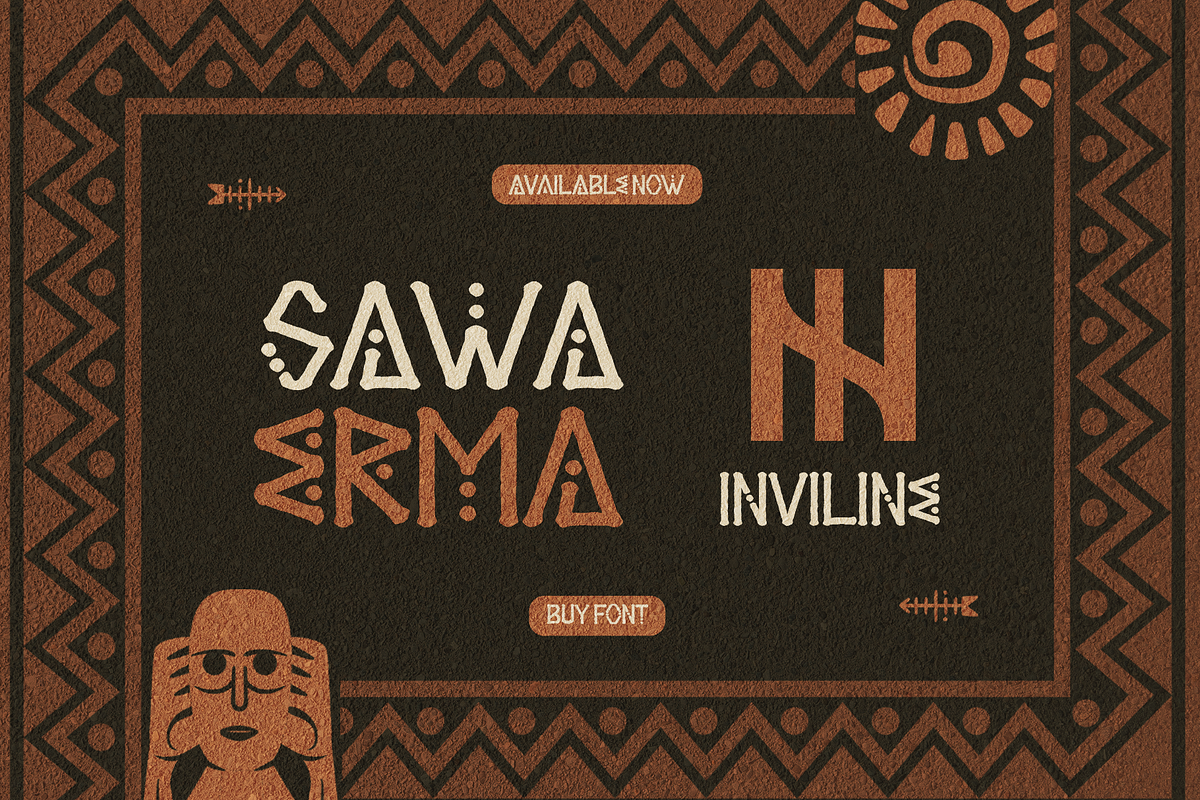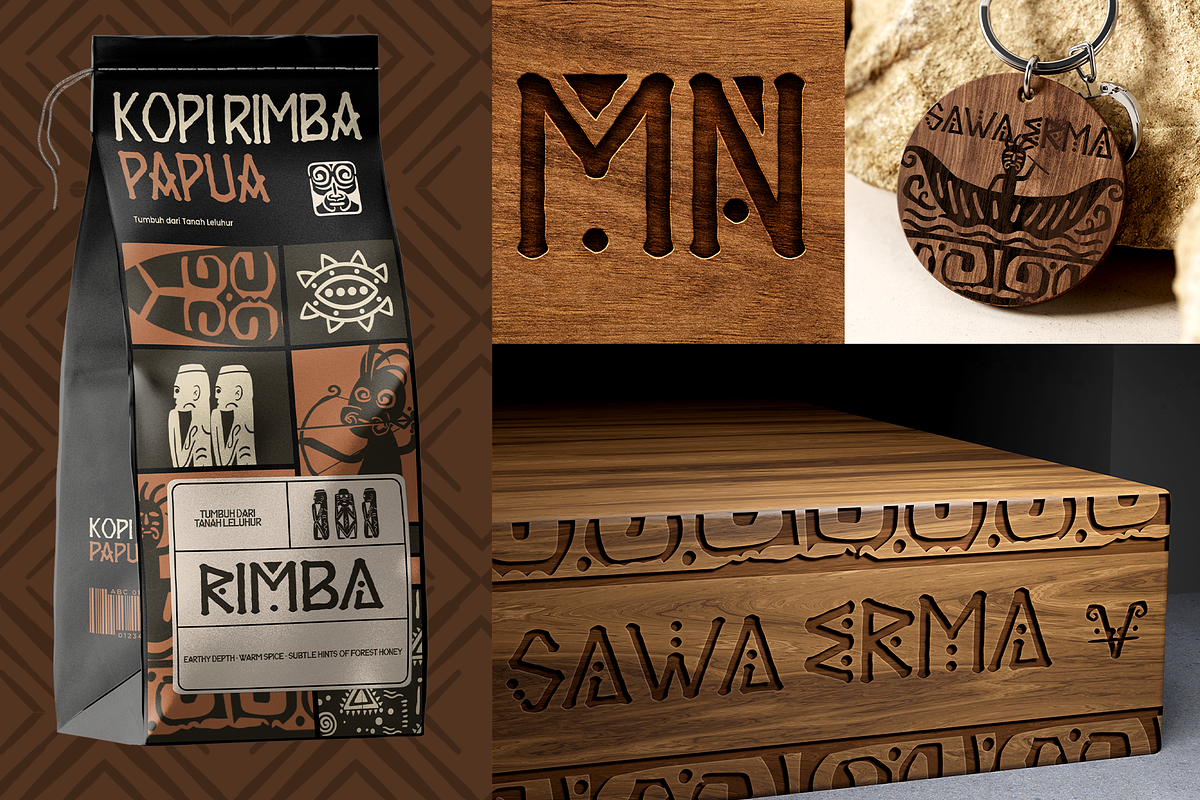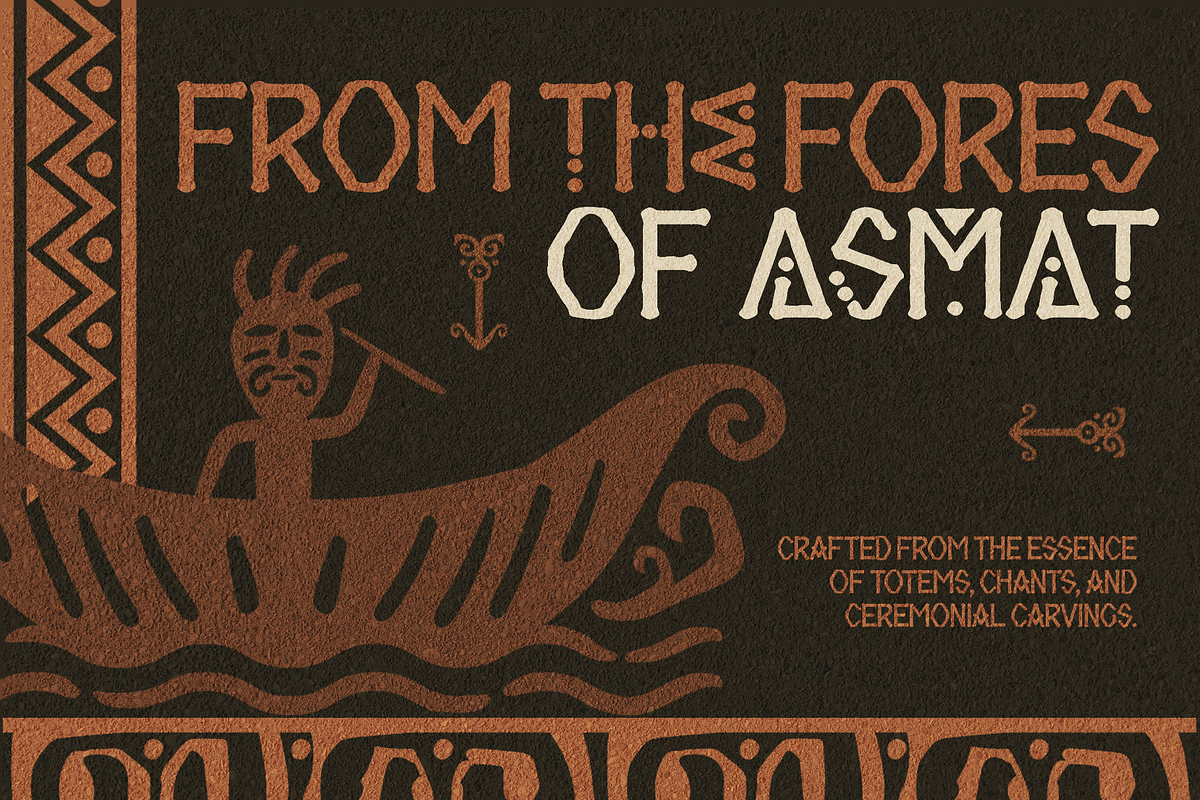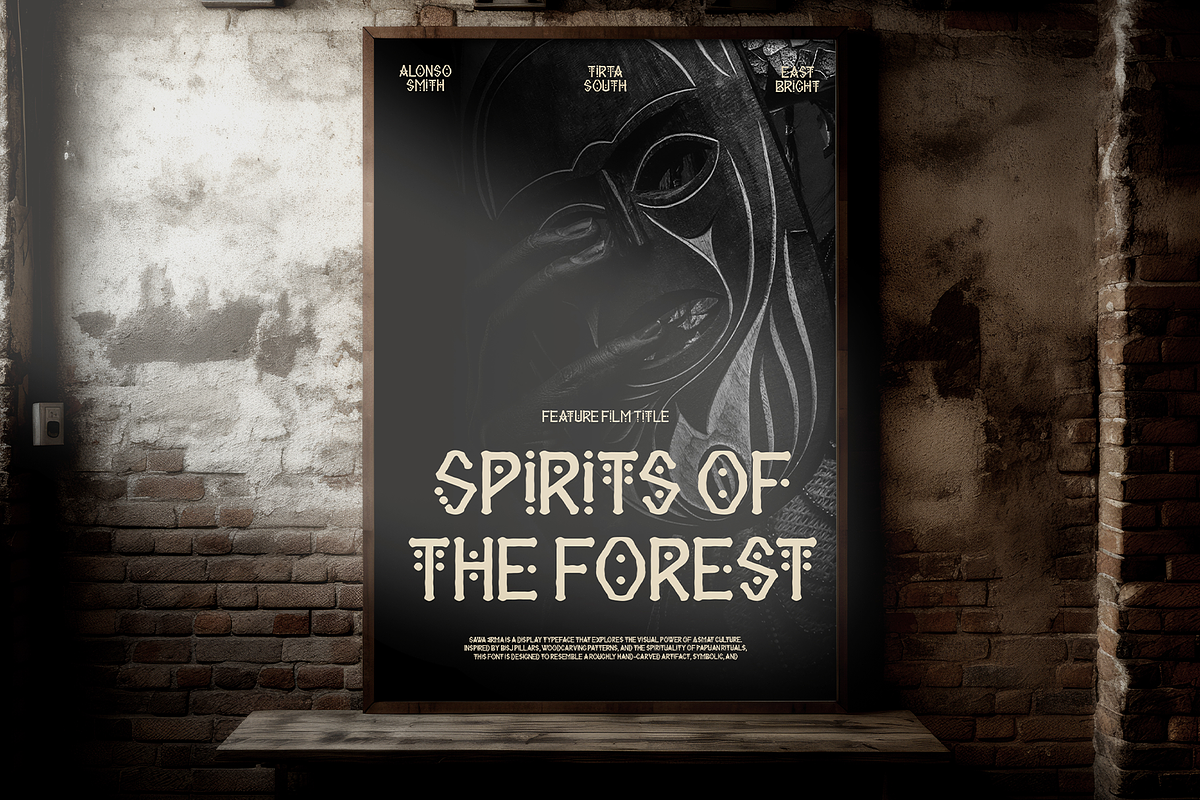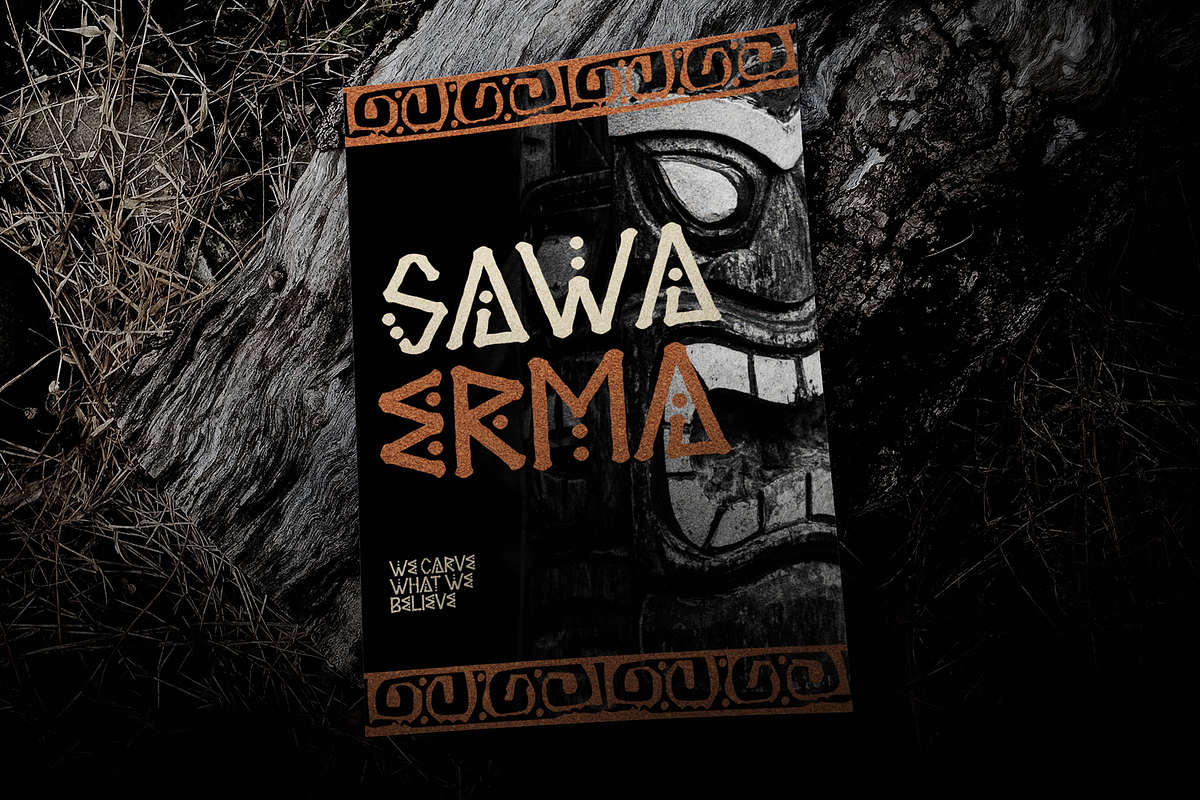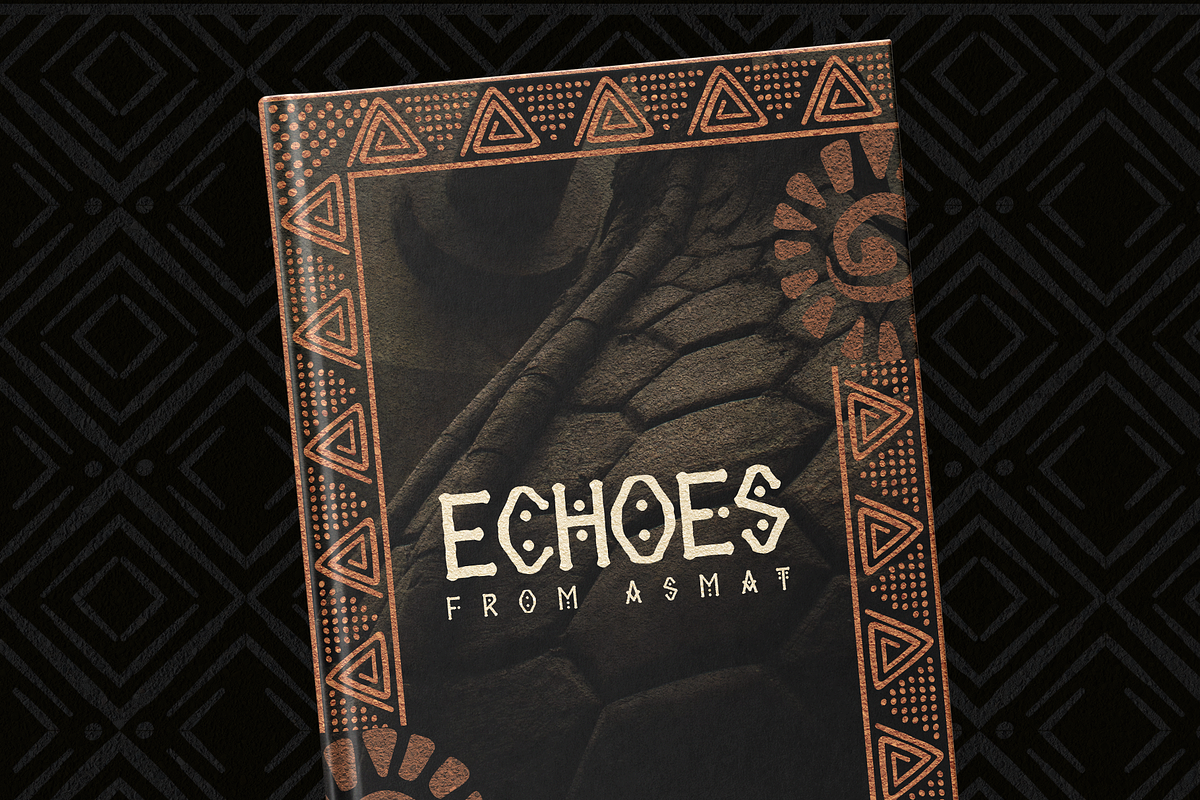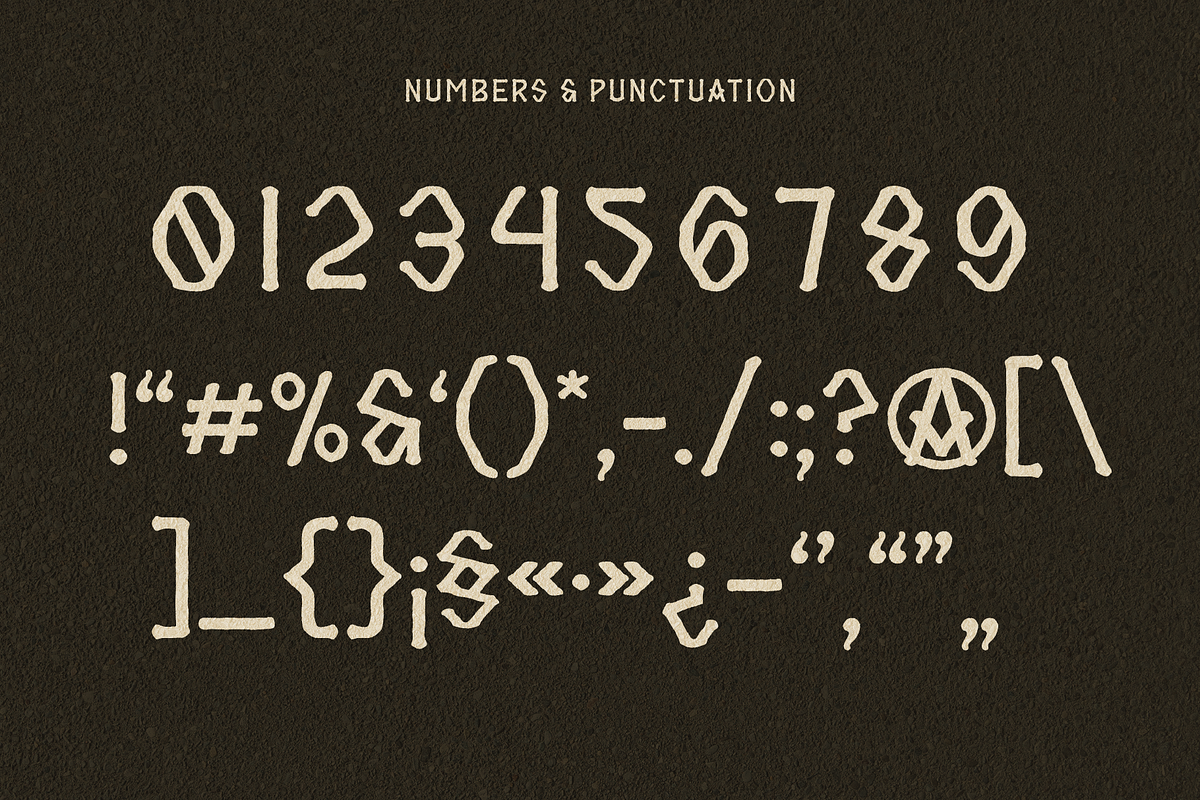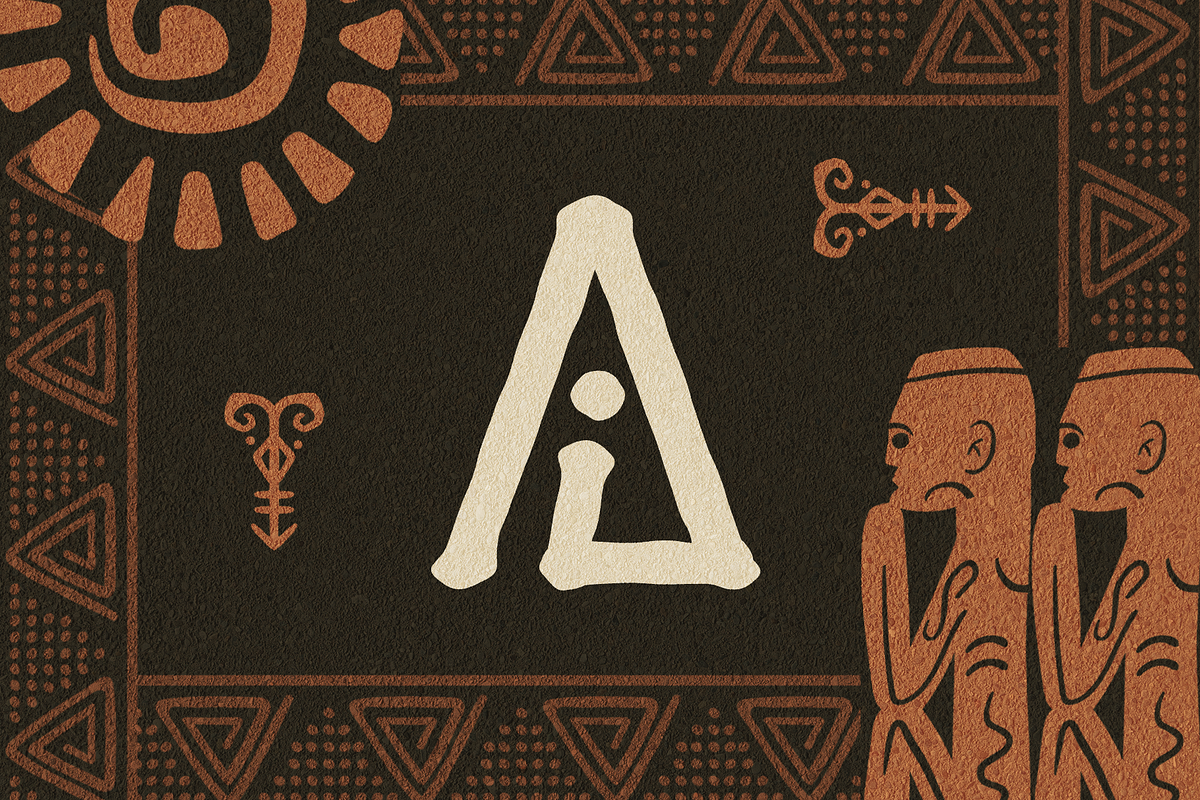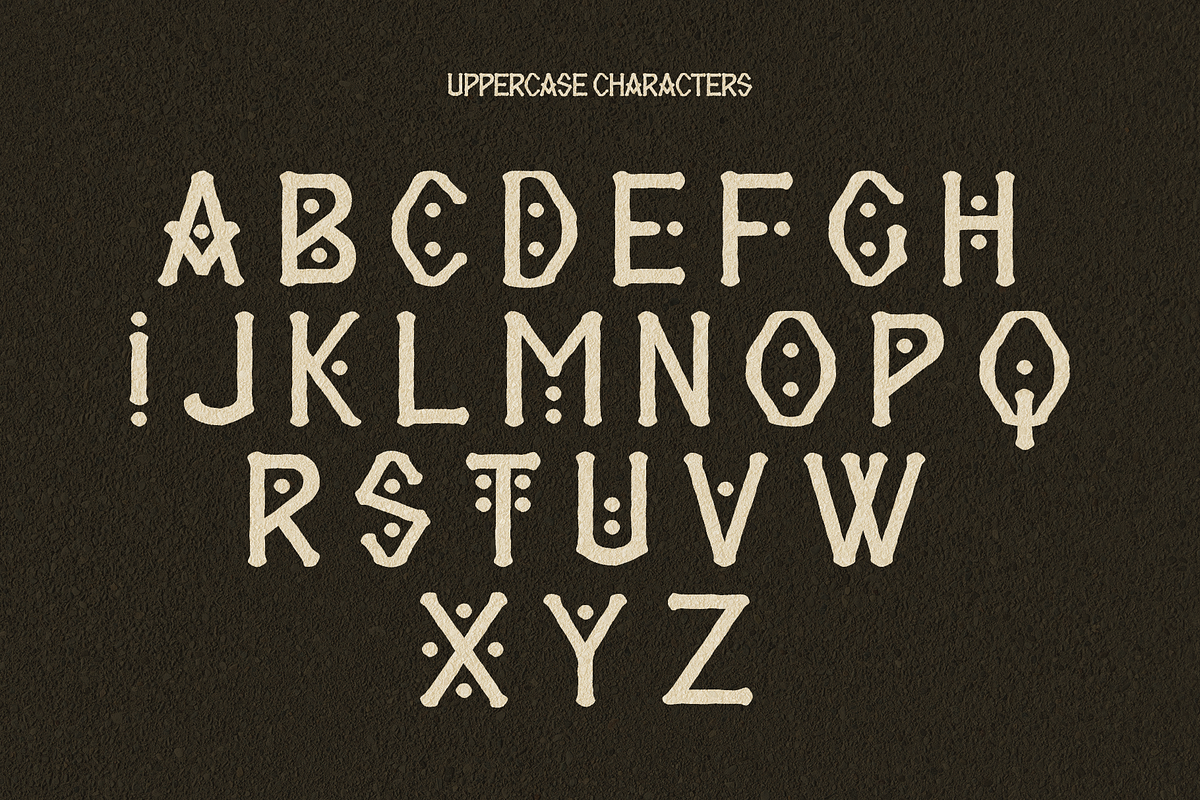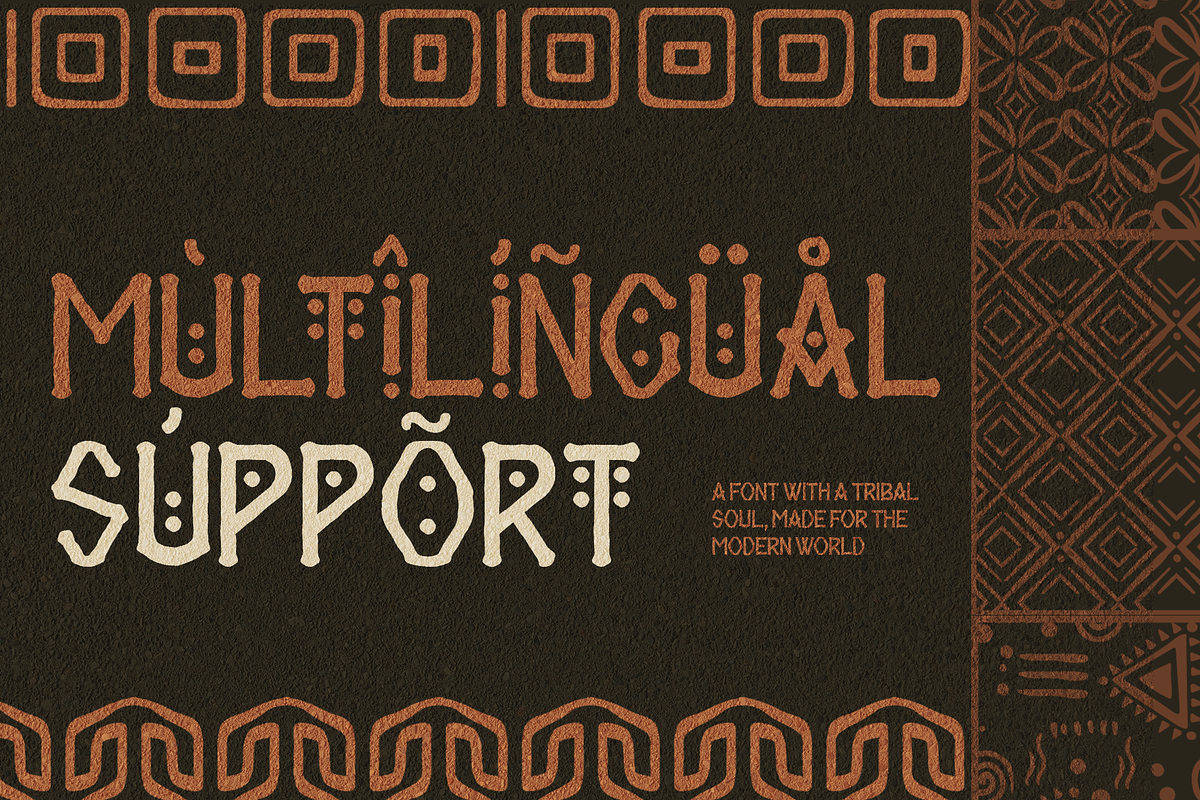
Sawa Erma – A Totemic Typeface
Sawa Erma is a tribal-inspired display font rooted in the visual language of the Asmat culture from Papua, Indonesia. Its rugged shapes, totemic motifs, and primitive dot-work detailing reflect the deep spiritual identity of indigenous craftsmanship. Each letter carries a symbolic rhythm that speaks of rituals, carvings, and ancestral heritage.
Designed to evoke indigenous pride and authenticity, Sawa Erma is perfect for folk art projects, festival posters, craft packaging, traditional product branding, and editorial works with deep cultural narratives.
- All-caps tribal letterforms
- Unique dots, glyph alternates & symbols
- Cultural branding & tribal packaging
- Ethnic-themed posters & banners
- Festival & ritual event visuals
- Folk crafts & heritage merch
- Book covers with indigenous identity